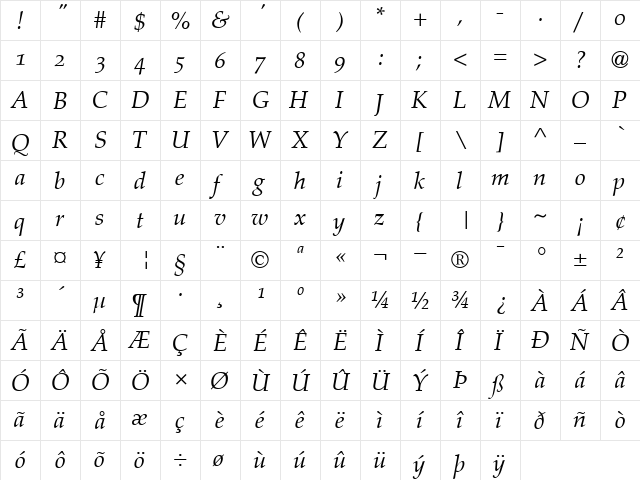
PalatinoOldStyleFigures RomanItalic
Design Context for PalatinoOldStyleFigures Typeface
PalatinoOldStyleFigures carries the refined structure of traditional serif typography, with bracketed terminals and considered proportions that communicate credibility and craft. Its italic angle brings a sense of urgency and motion to the letterforms.